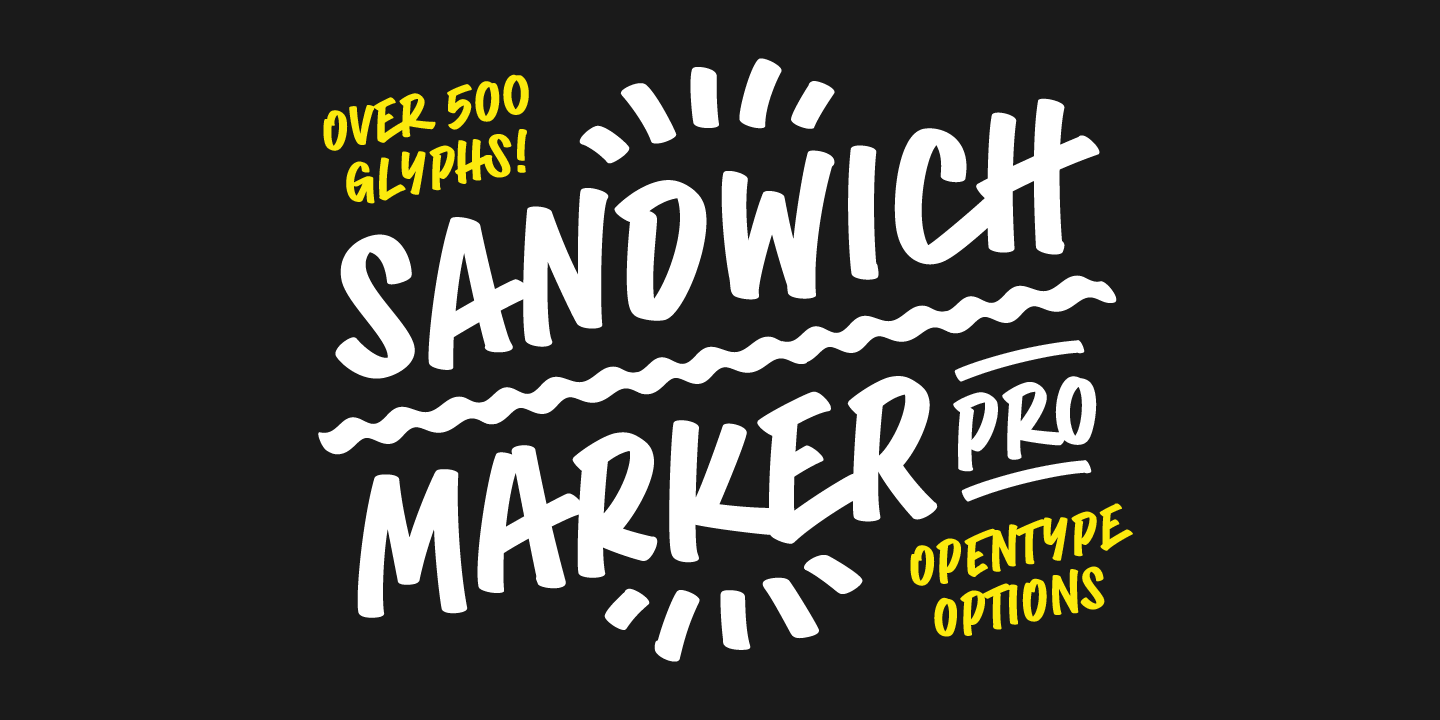
Sandwich Marker Pro Font is perfect for casual dining restaurant branding, food truck graphics, sandwich shop signage, casual menu design, artisan bakery logos, deli counter displays, hand-lettered food packaging, and approachable culinary marketing. This appetizingly handcrafted typeface excels in projects requiring authentic casual charm and artisanal food appeal where handmade aesthetics meet professional culinary communication.
What makes Sandwich Marker Pro Font exciting is its authentic recreation of hand-drawn marker lettering that captures the genuine warmth and personal touch of artisanal food preparation. The font features organic characters with natural marker textures and authentic imperfections that convey freshness, craftsmanship, and the personal attention that makes great food memorable. Its handcrafted character makes it perfect for food establishments that pride themselves on authentic preparation and personal service in today's fast-paced dining landscape.
Sandwich Marker Pro Font family includes multiple weights and handcrafted variations that enhance its artisanal appeal while providing comprehensive design flexibility for diverse food service applications. The family typically offers light, regular, medium, and bold weights, along with textured alternates, food-themed symbols, and handcrafted ornaments that complement casual dining and artisanal food design themes perfectly.
Whether you're developing casual restaurant identity, creating food truck branding, or designing artisanal product packaging, Sandwich Marker Pro Font Free Download provides the perfect handcrafted solution for projects celebrating authentic food preparation and personal culinary service. This font's casual charm and artisanal authenticity make it essential for food brands targeting customers who appreciate genuine craftsmanship and personal attention.
The authentically hand-drawn letterforms and marker-inspired proportions of Sandwich Marker Pro Font create immediate associations with fresh, handmade food while maintaining excellent readability across all culinary applications. Its distinctive handcrafted personality and food service symbolism make it an invaluable tool for designers working with casual dining, food service, and artisanal food brands. Download Sandwich Marker Pro Font today and add authentic artisanal character to your culinary projects with this professionally crafted typeface that perfectly captures the essence of handmade food and personal culinary service.